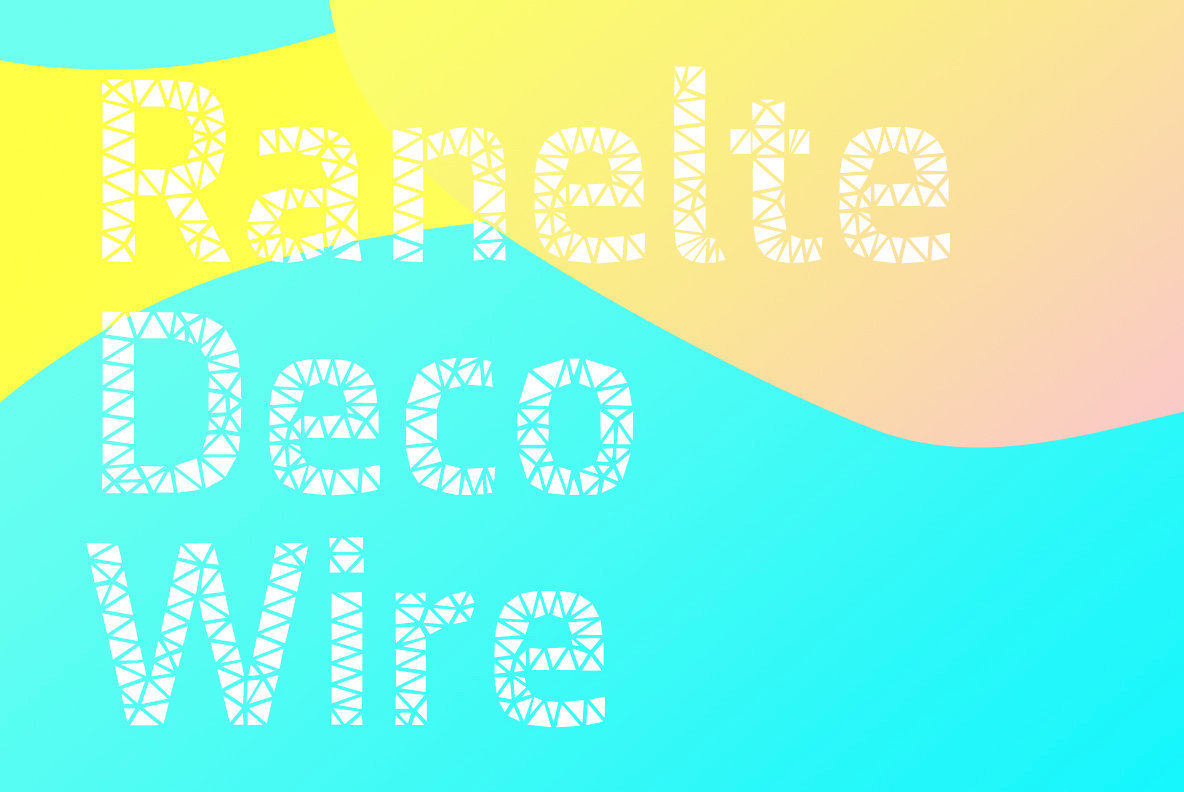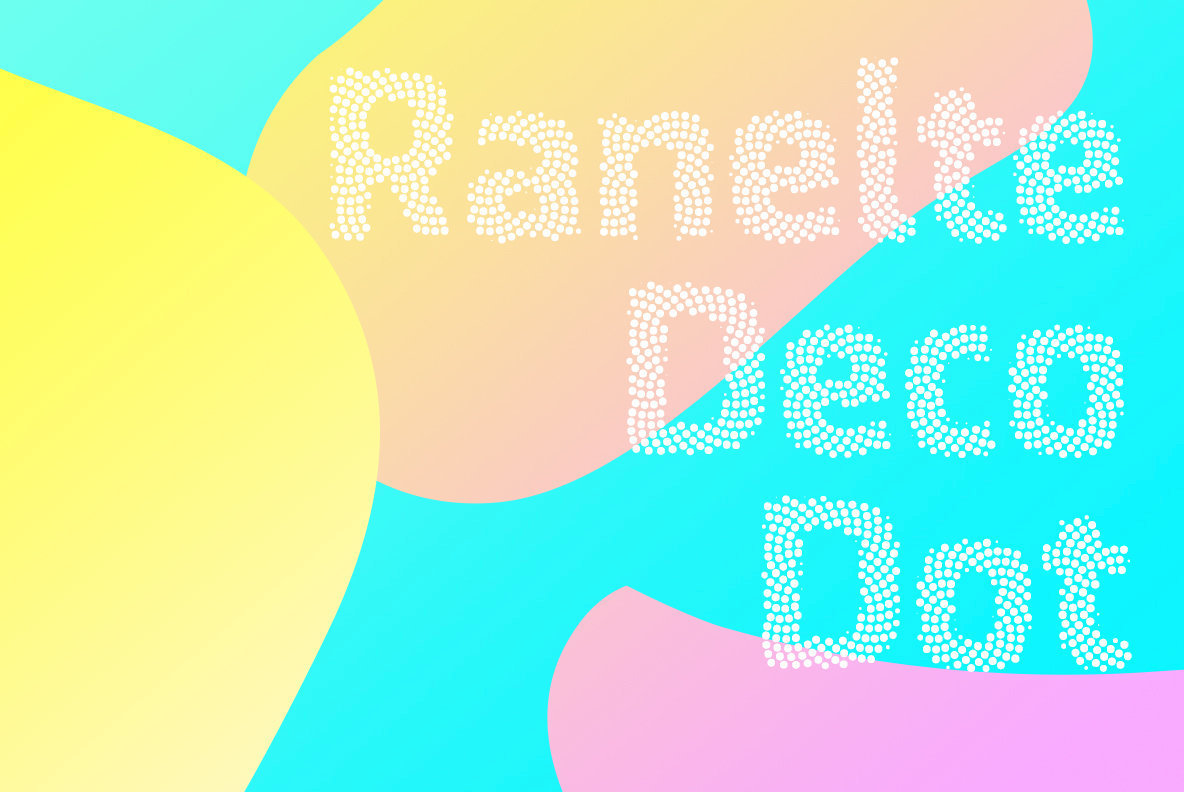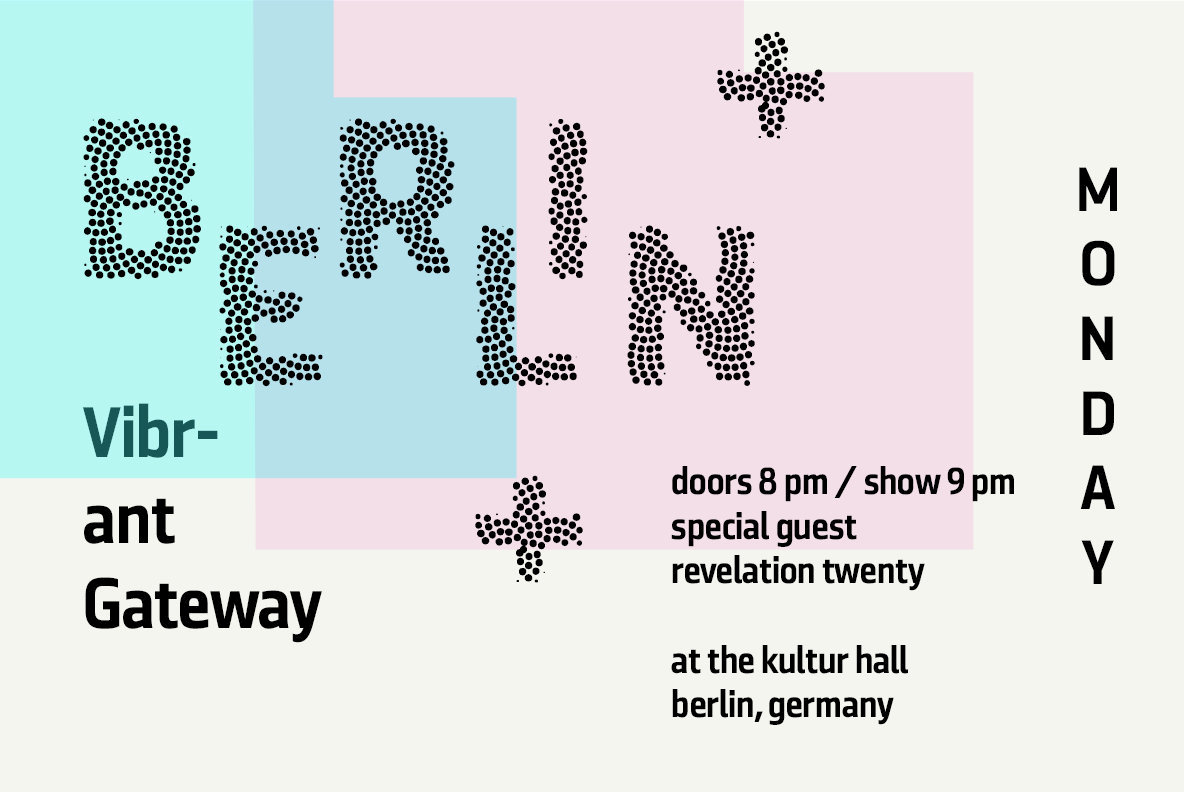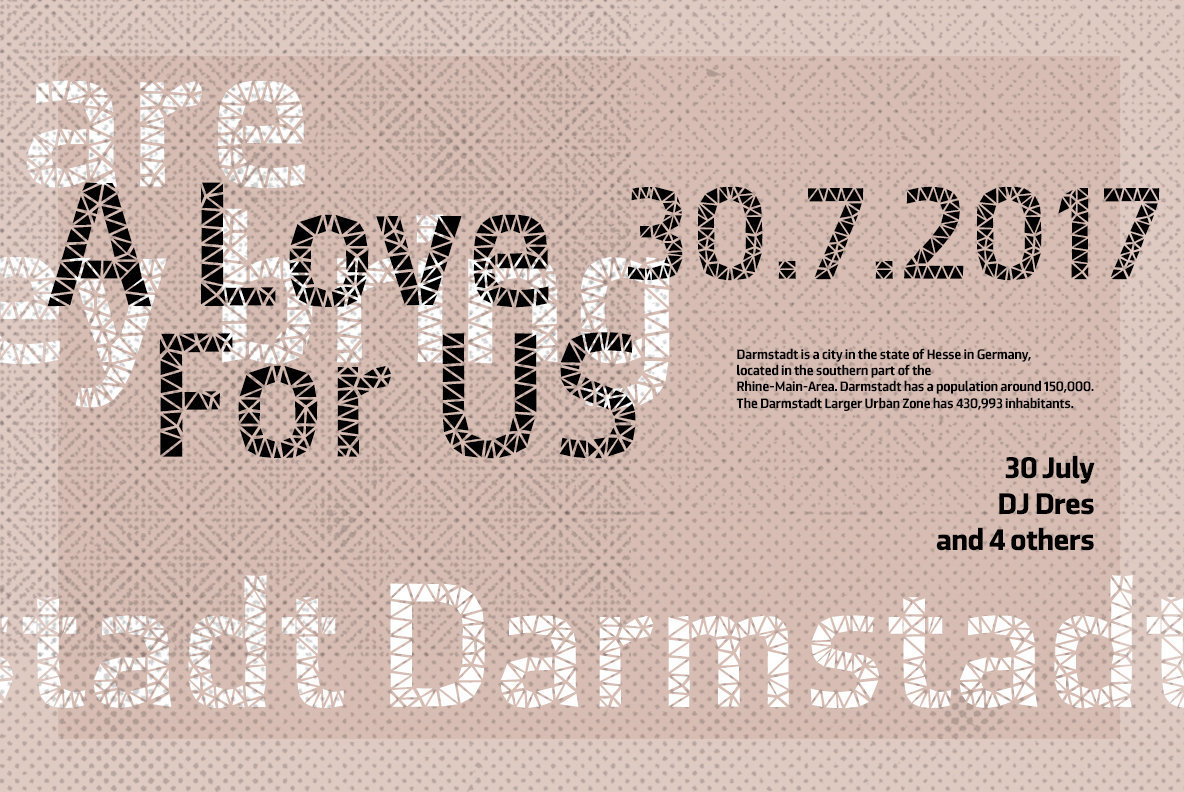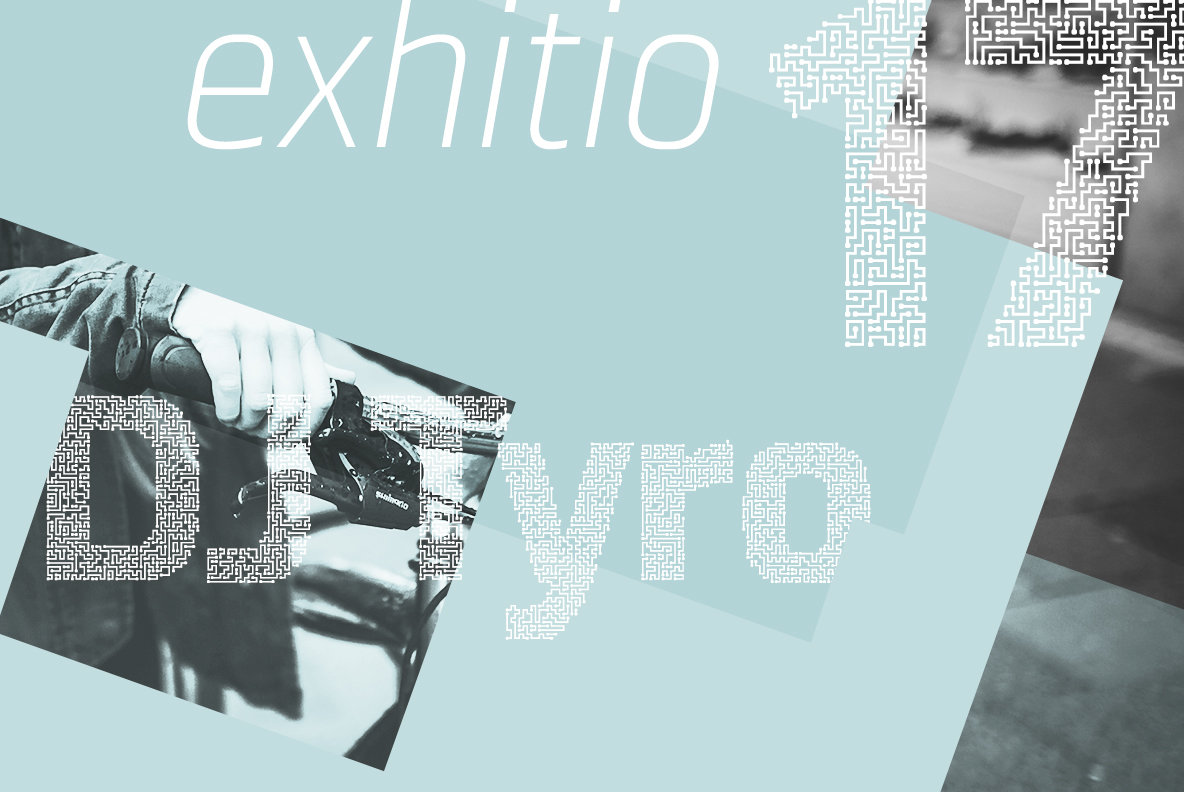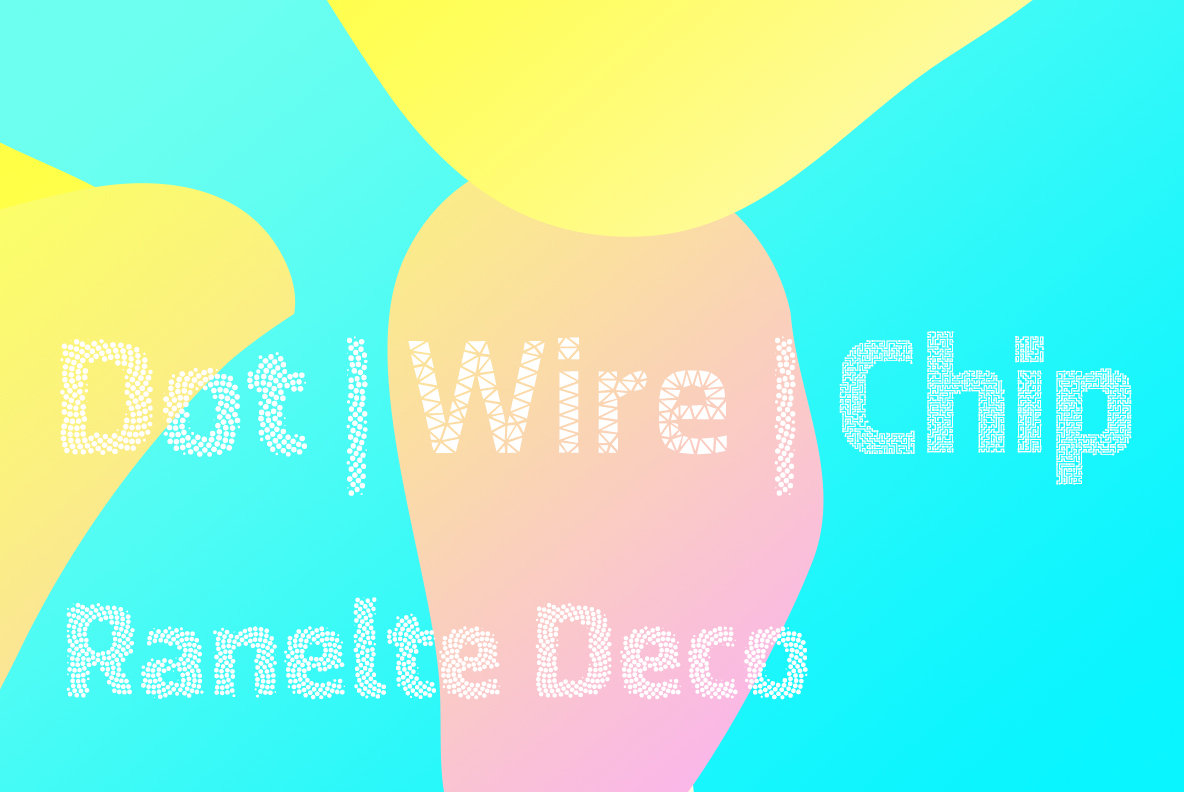
Ranelte Deco Font
With the original Ranelte, Insigne Design pays tribute to the strong, simple forms of the long-lasting DIN series. Now, Ranelte Deco, a new variant on the classic-inspired font, makes a more specific statement with some unique styles that are clearly contemporary. It’s the type of face that you’ll find adds great value to your high-tech and bleeding edge design uses.
Ranelte Deco is designed for title use and posters. Since it’s an experimental display font, there are no OpenType features, but the typeface fully covers Latin-based languages.
Remember, even a timeless classic can be reshaped to something beautiful. See how the new style of Ranelte Deco can make your next masterpiece.